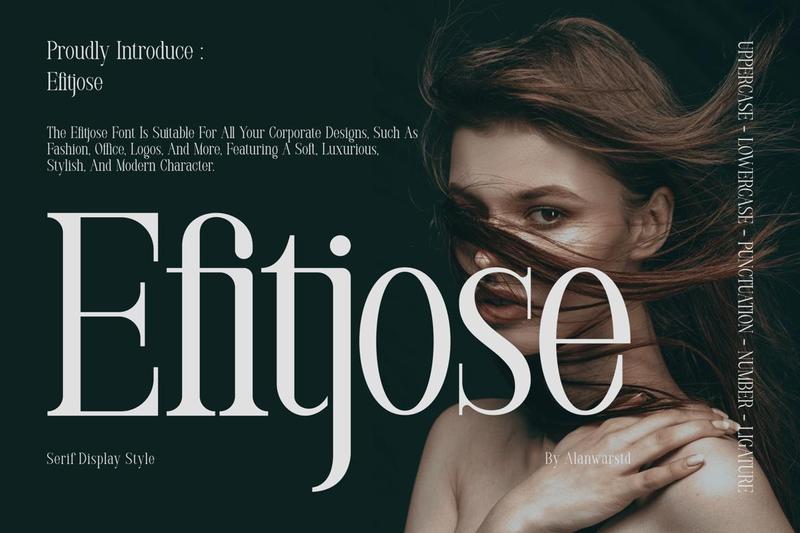
Introducing our new product **Efitjose** – Serif Display Style
**Efitjose** – Serif Display Style is a regular and authentic display font. The font is suitable for any branding project like logo, esport, and many more. outstanding in a wide range of contexts.
* Uppercase
* Lowercase
* Uppercase Ligature
* Lowercase Ligature